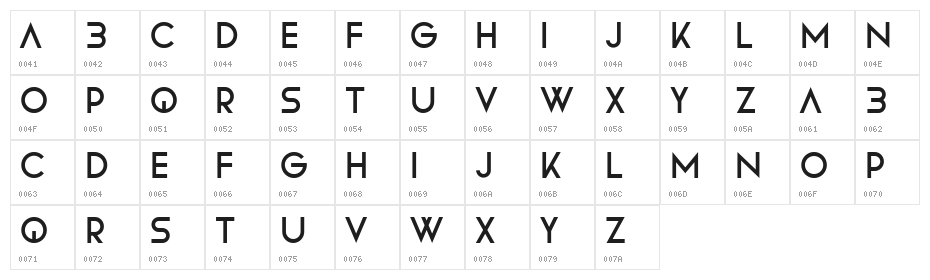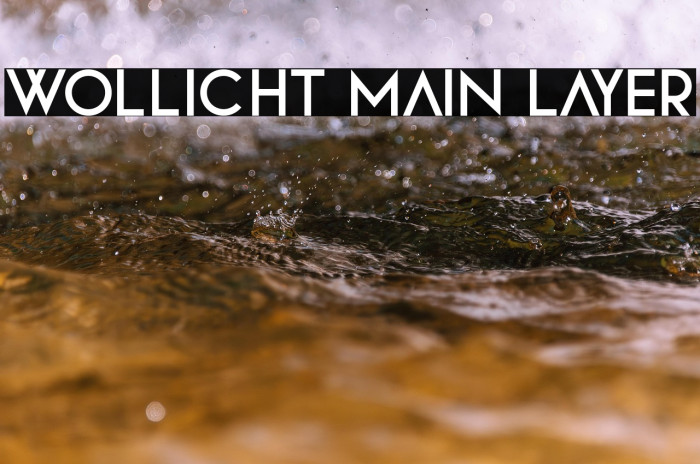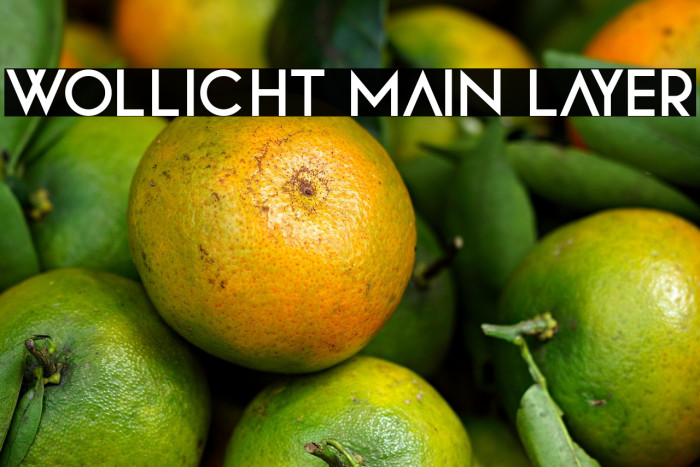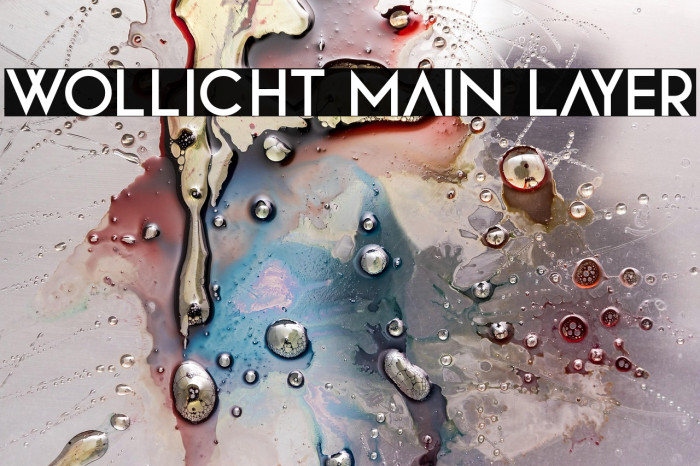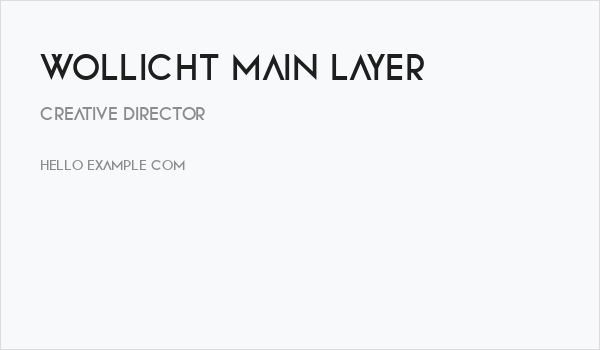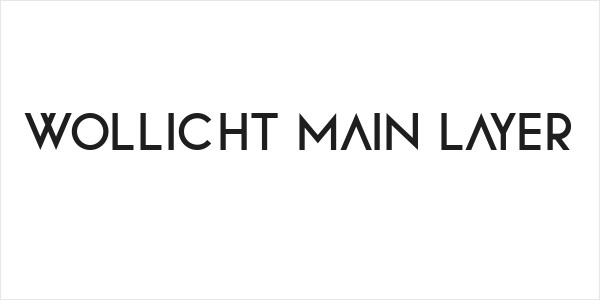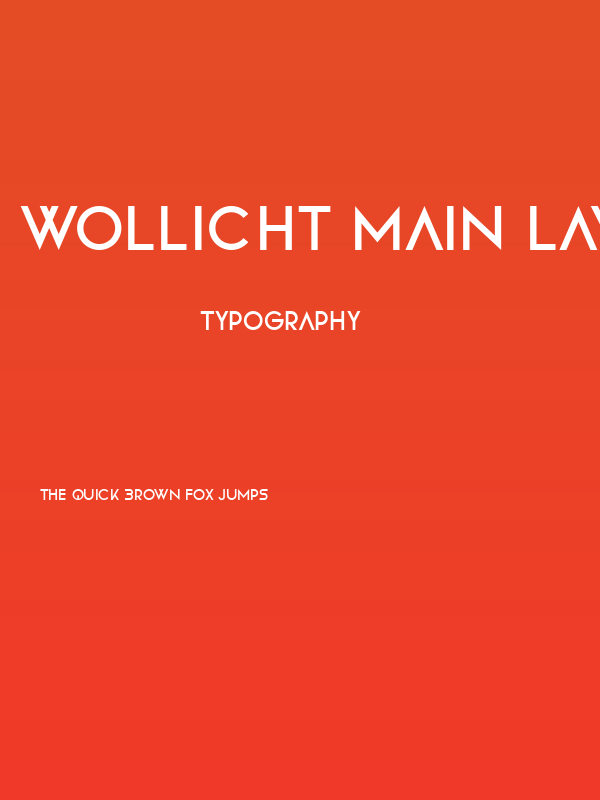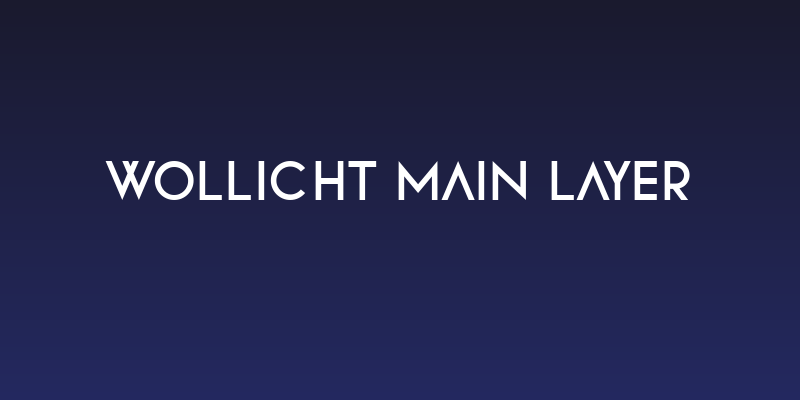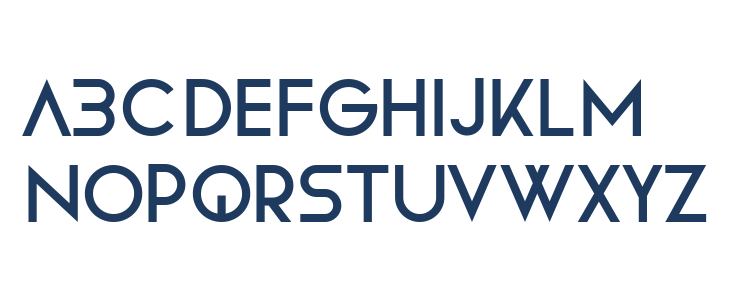
Wollicht Main Layer Font
Wollicht Main Layer Description
A geometric, sans-serif typeface with clean, angular lines and circular forms. The characters are uniform in width with a modern, minimalist aesthetic. Unique letterforms such as the stylized 'A', 'B', and 'R' add a distinctive, futuristic touch.
| Name | Wollicht Main Layer |
| Overall Style | Modern, Futuristic, Minimalist |
| Use Case | Headlines, Logos, Posters, Branding |
| Proposed Projects | Branding, technology logos, posters, editorial headlines, signage, packaging. |